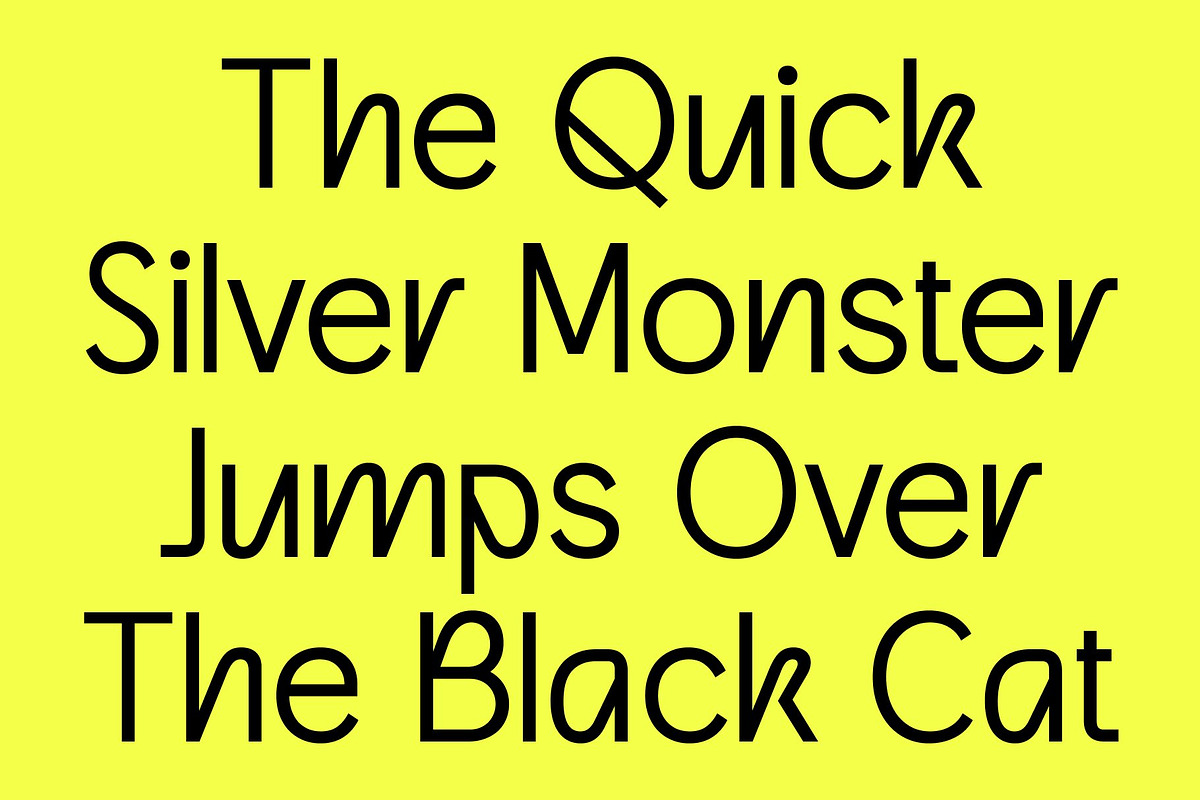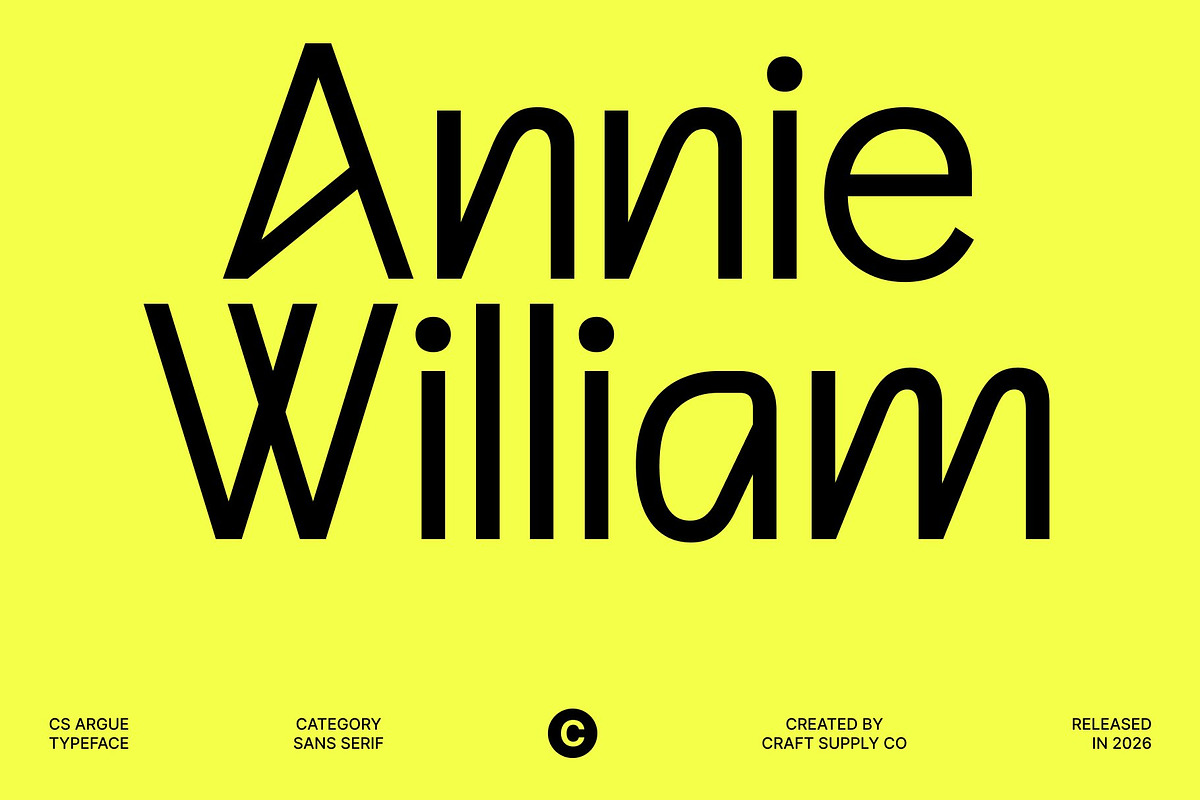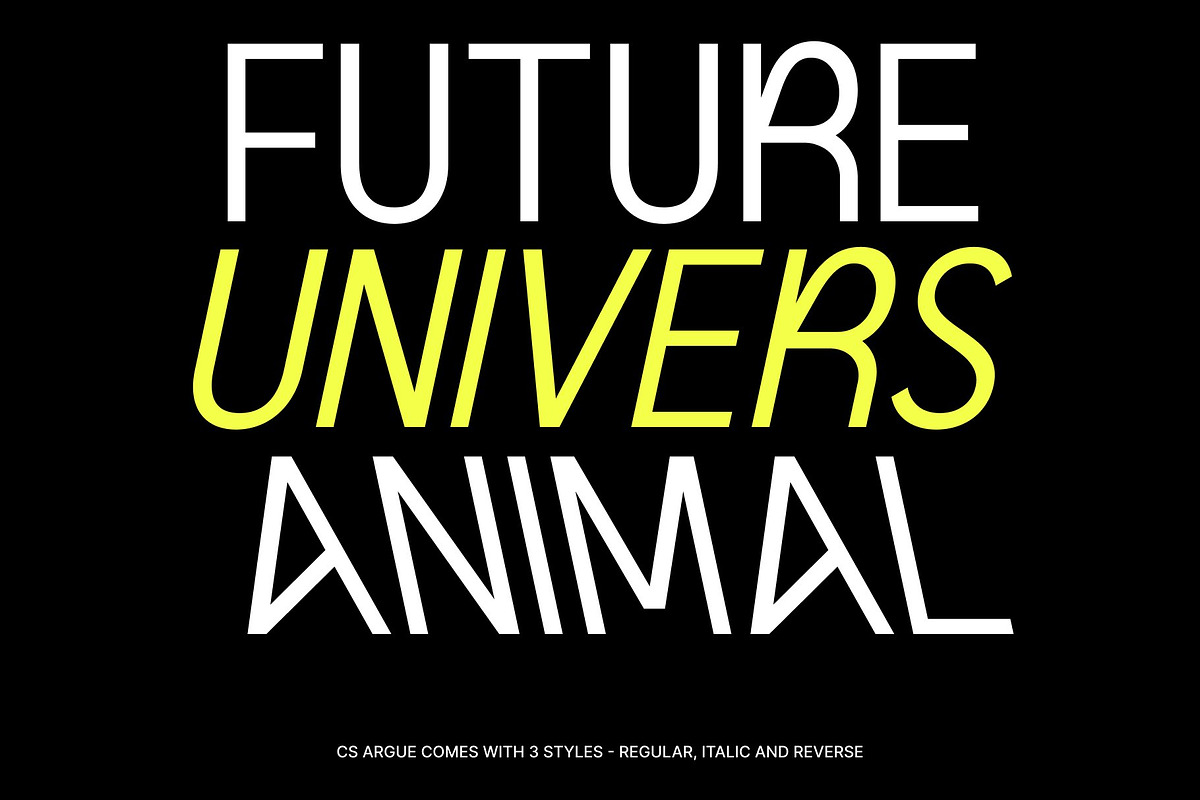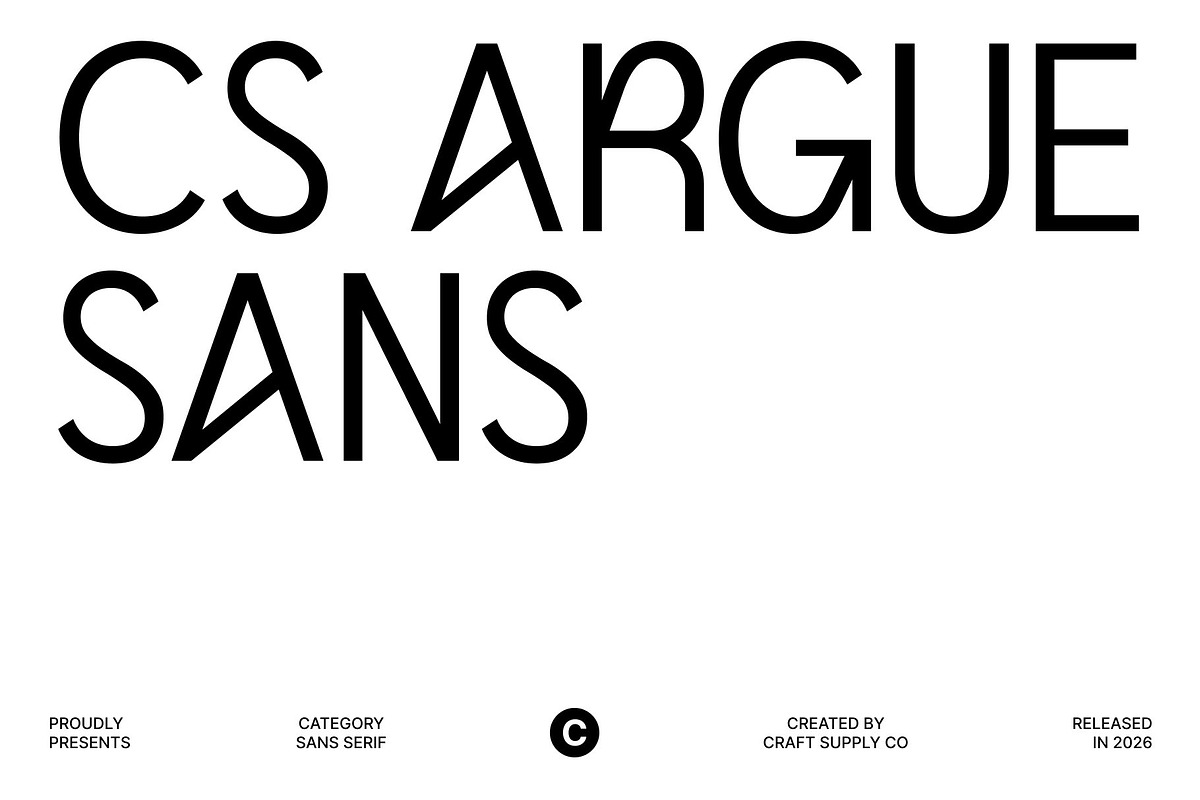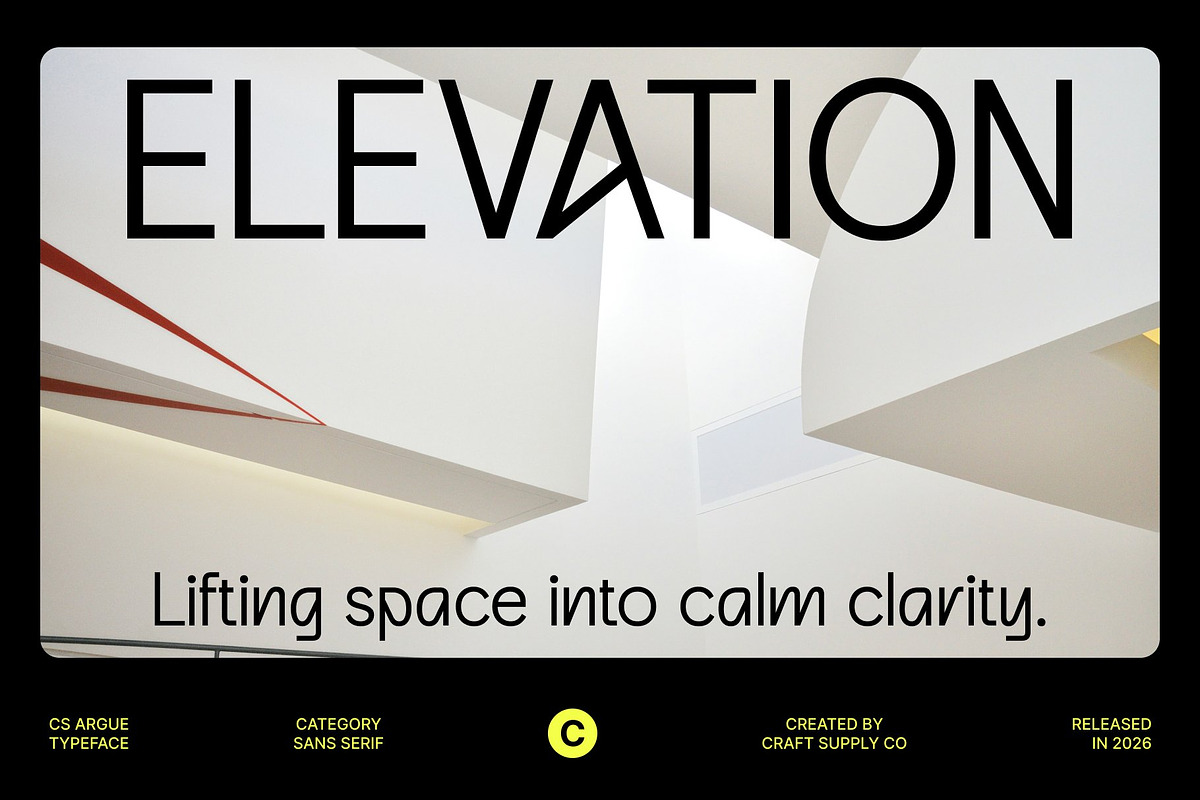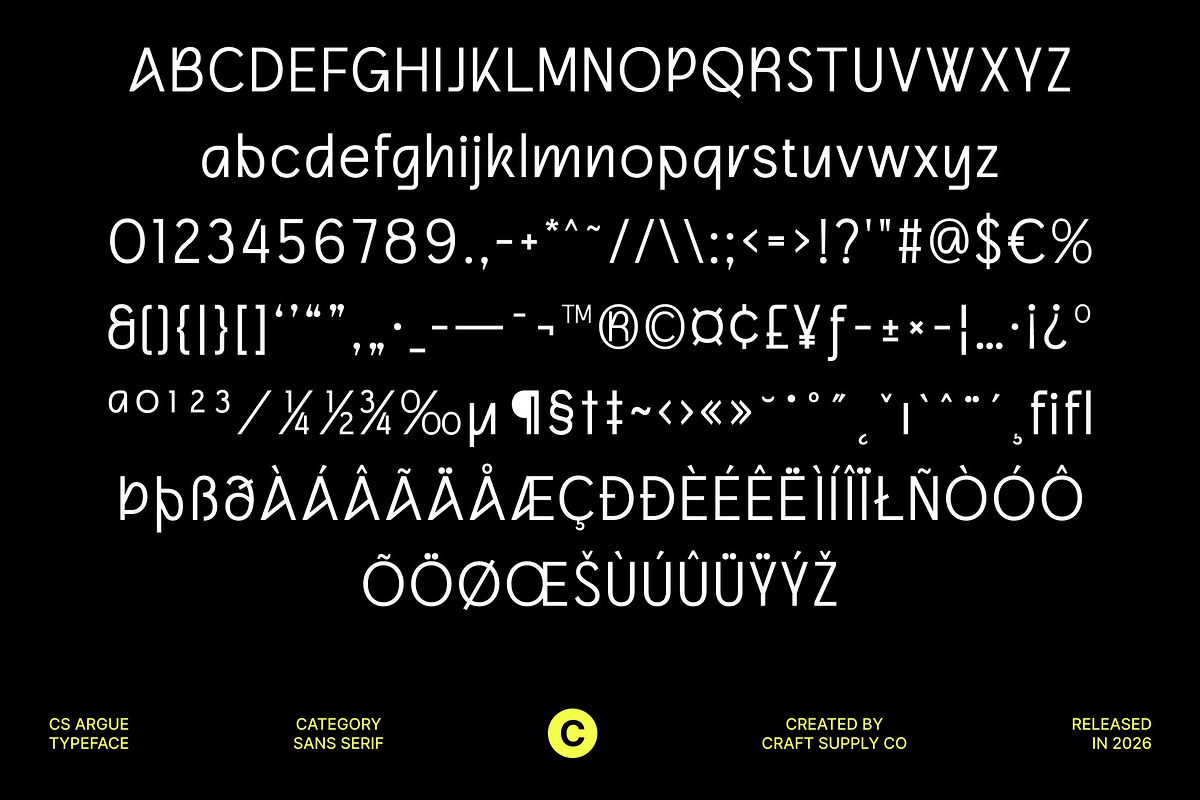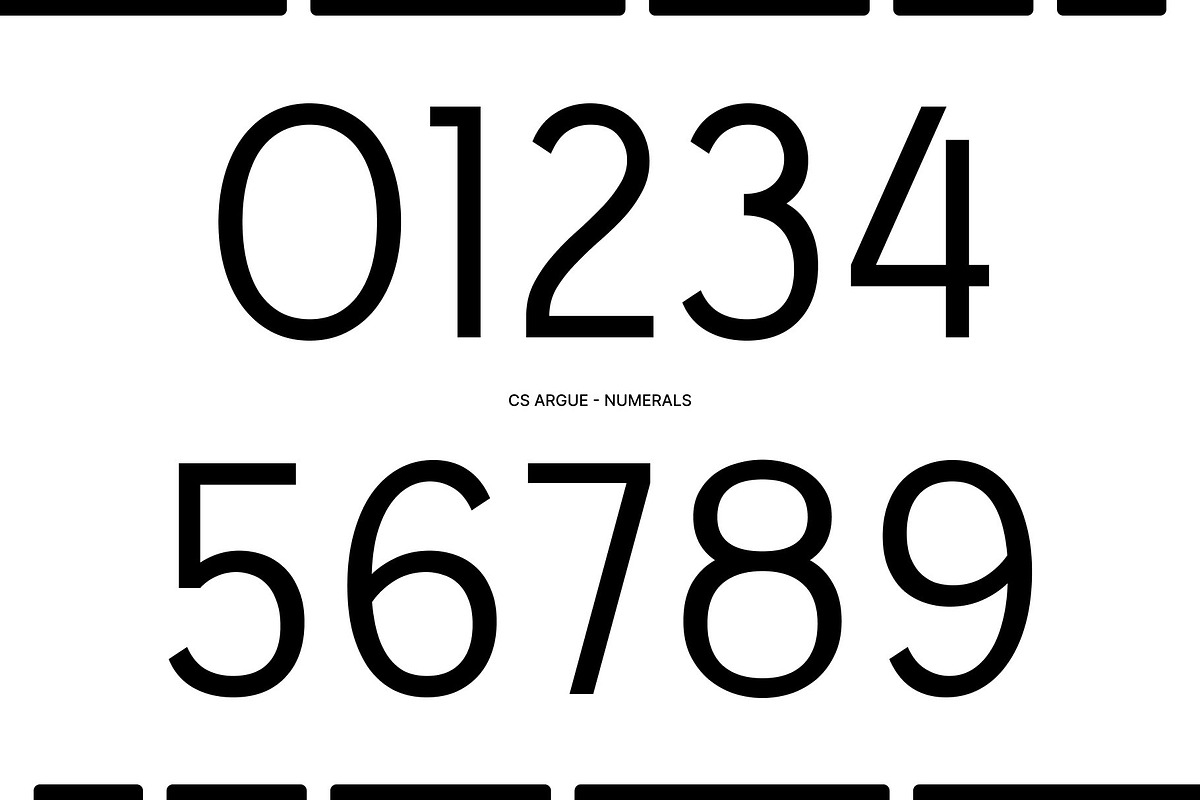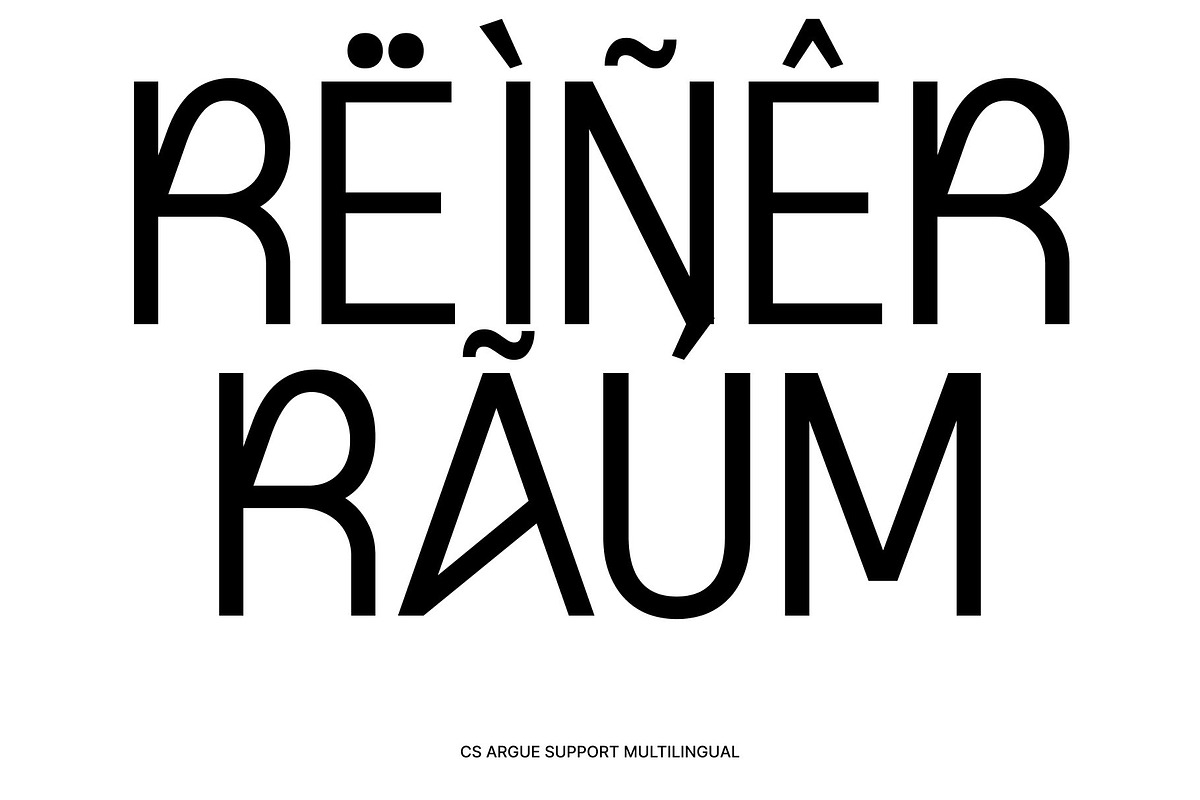
CS Argue – Modern Sans Serif
CS Argue – Modern Simplicity with Quirky Expression
Modern Sans Serif Font with Experimental Character This is a modern sans serif font that blends clean structure with quirky and experimental design elements. Built on a contemporary foundation, this font introduces unexpected details and playful proportions that give it a distinctive personality. The result is a typeface that feels fresh, expressive, and confidently modern while maintaining clarity and usability.
Quirky Details with Clean Construction What sets this font apart is its subtle quirks woven into a clean, minimalist framework. Unique letter shapes, unconventional cuts, and thoughtful spacing create visual interest without sacrificing readability. These experimental touches add charm and individuality, allowing the font to stand out while still delivering a polished and professional appearance.
Trendy Style for Stylish Visual Concepts This font captures a trendy aesthetic that aligns perfectly with modern design culture. Its balance between simplicity and experimentation makes it ideal for stylist-driven projects that aim to feel creative and current. The font adapts well across digital and print applications, offering a contemporary voice that feels expressive yet controlled.
Perfect for Branding and Modern Design Designed for versatile modern use, this font is well suited for branding, visual identities, editorials, posters, and creative layouts. Its clean yet quirky character makes it especially effective for fashion brands, creative studios, lifestyle projects, and modern campaigns.